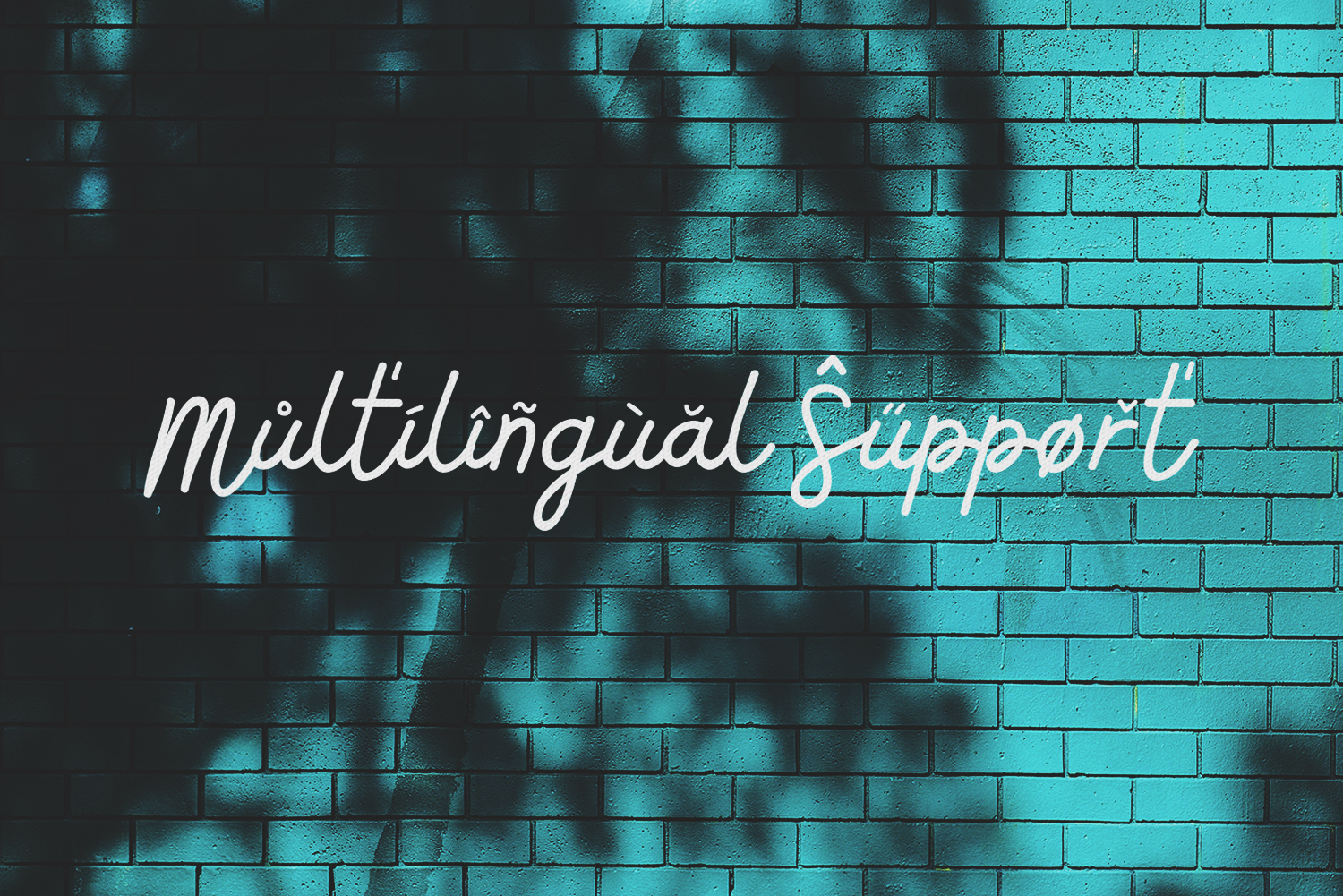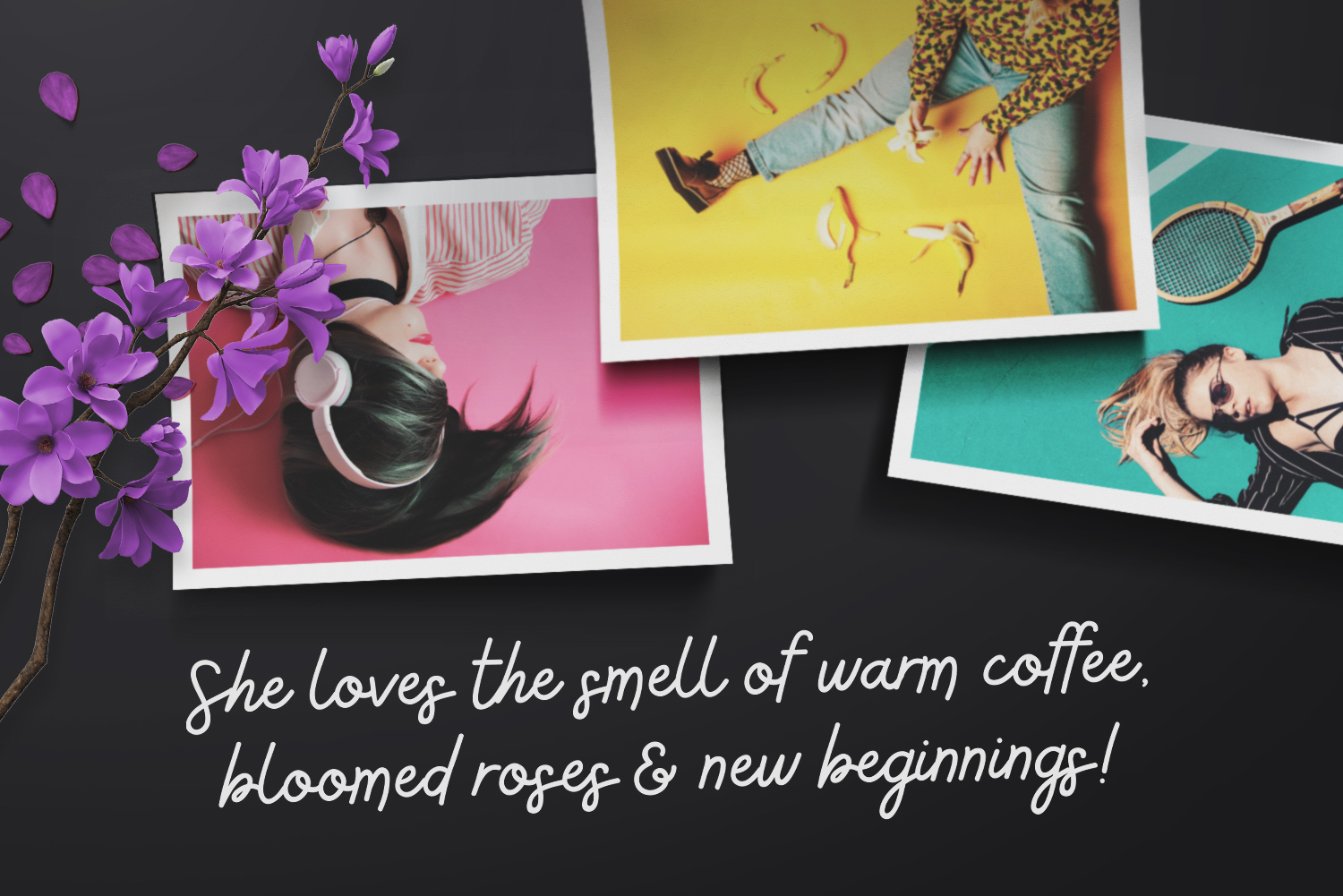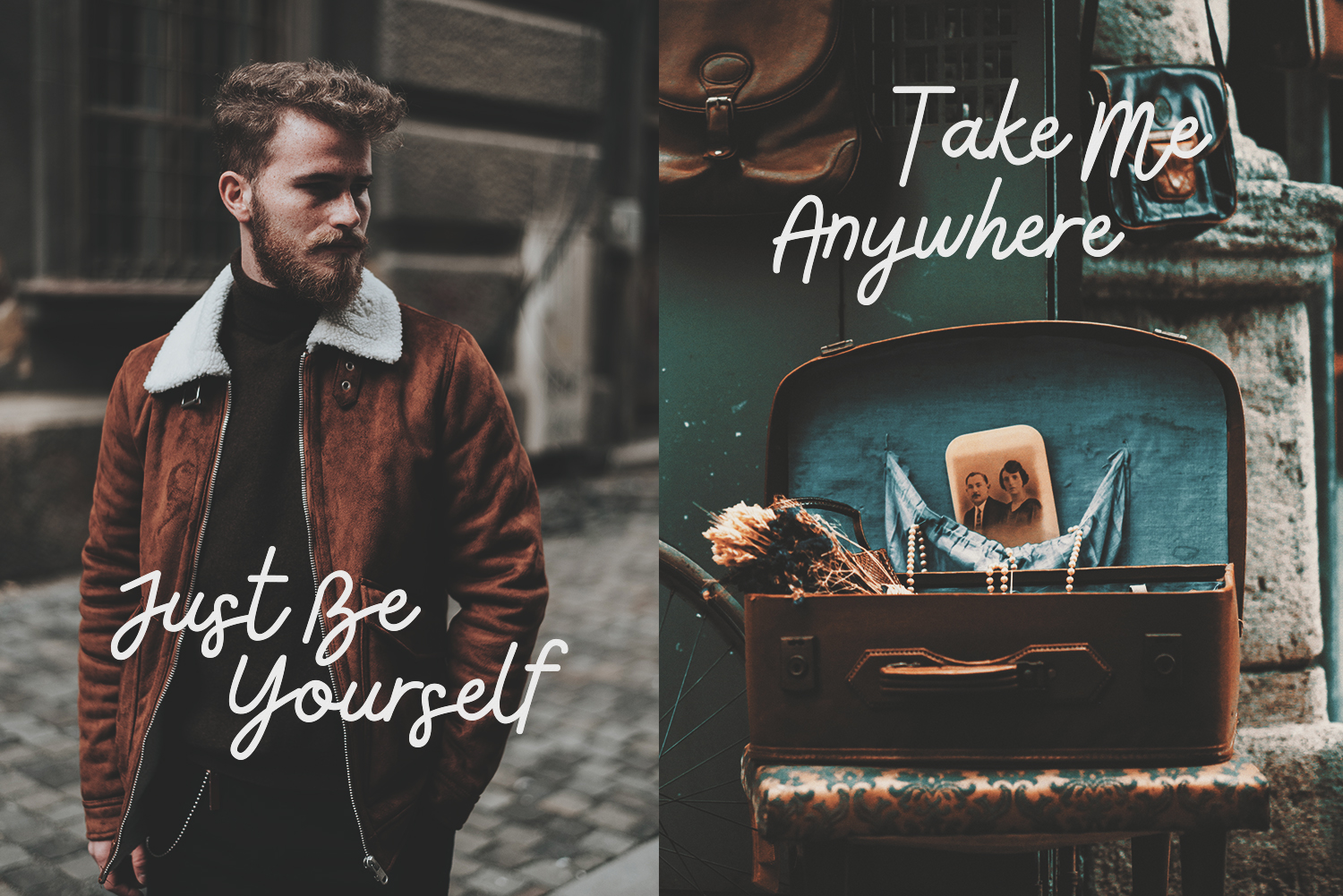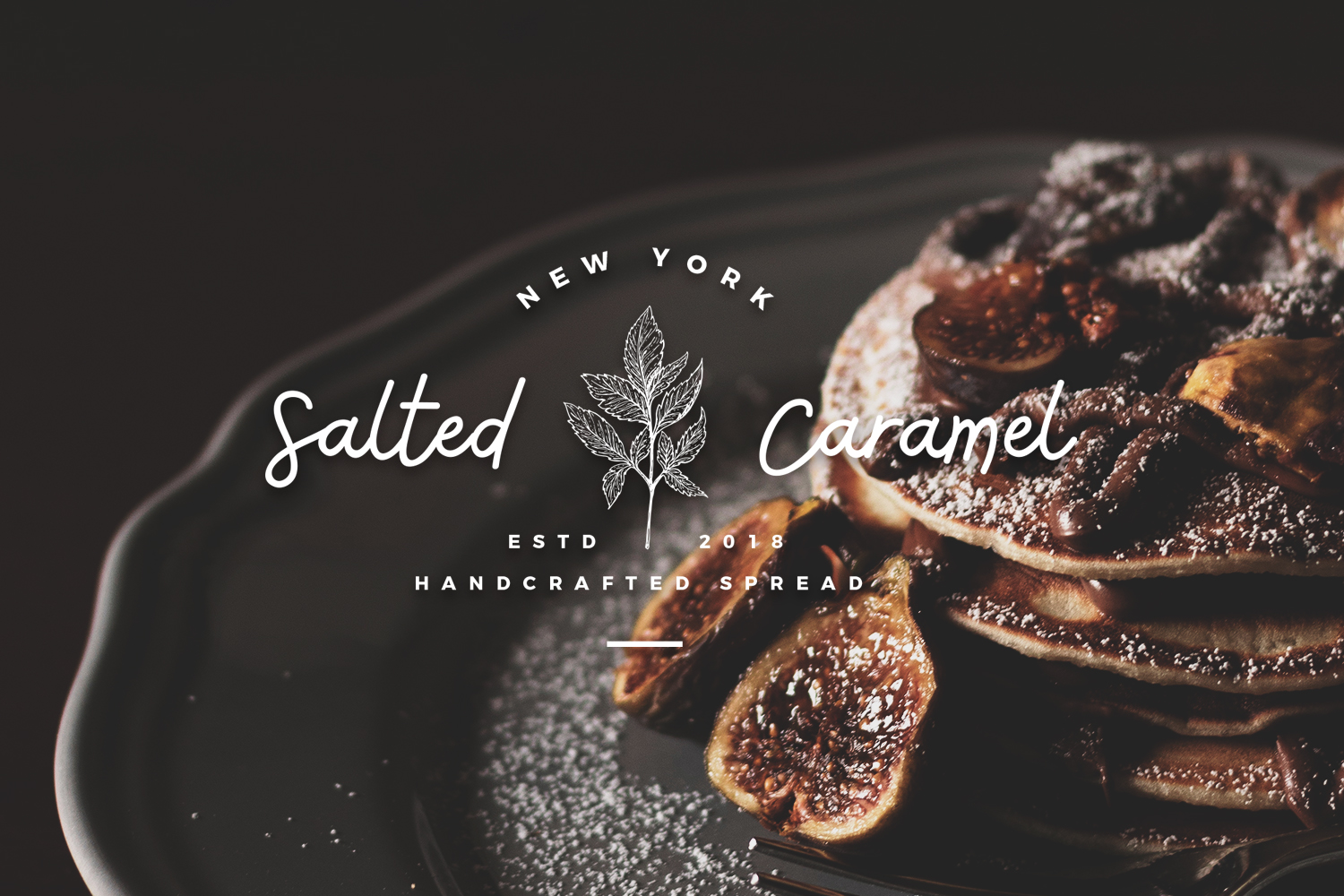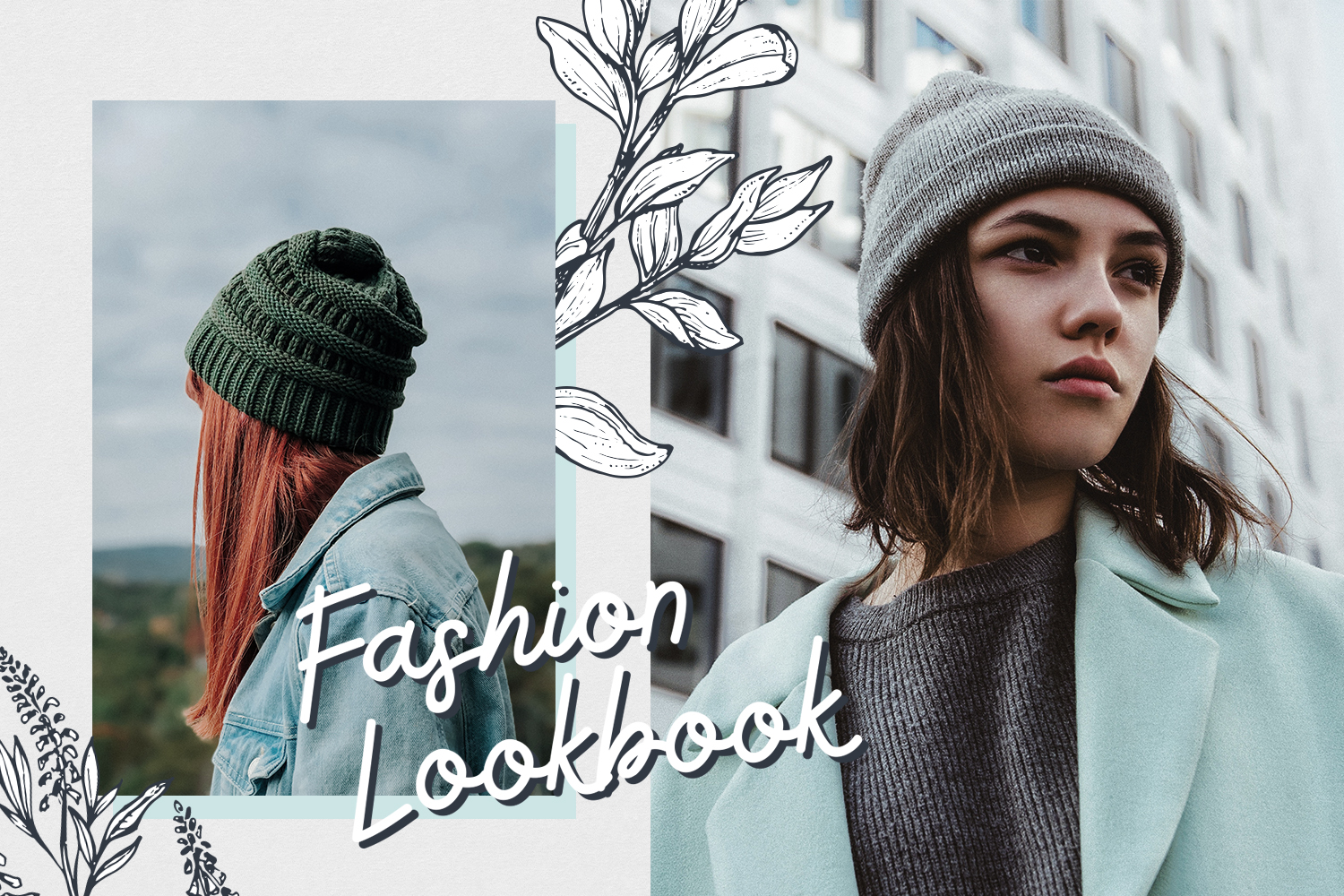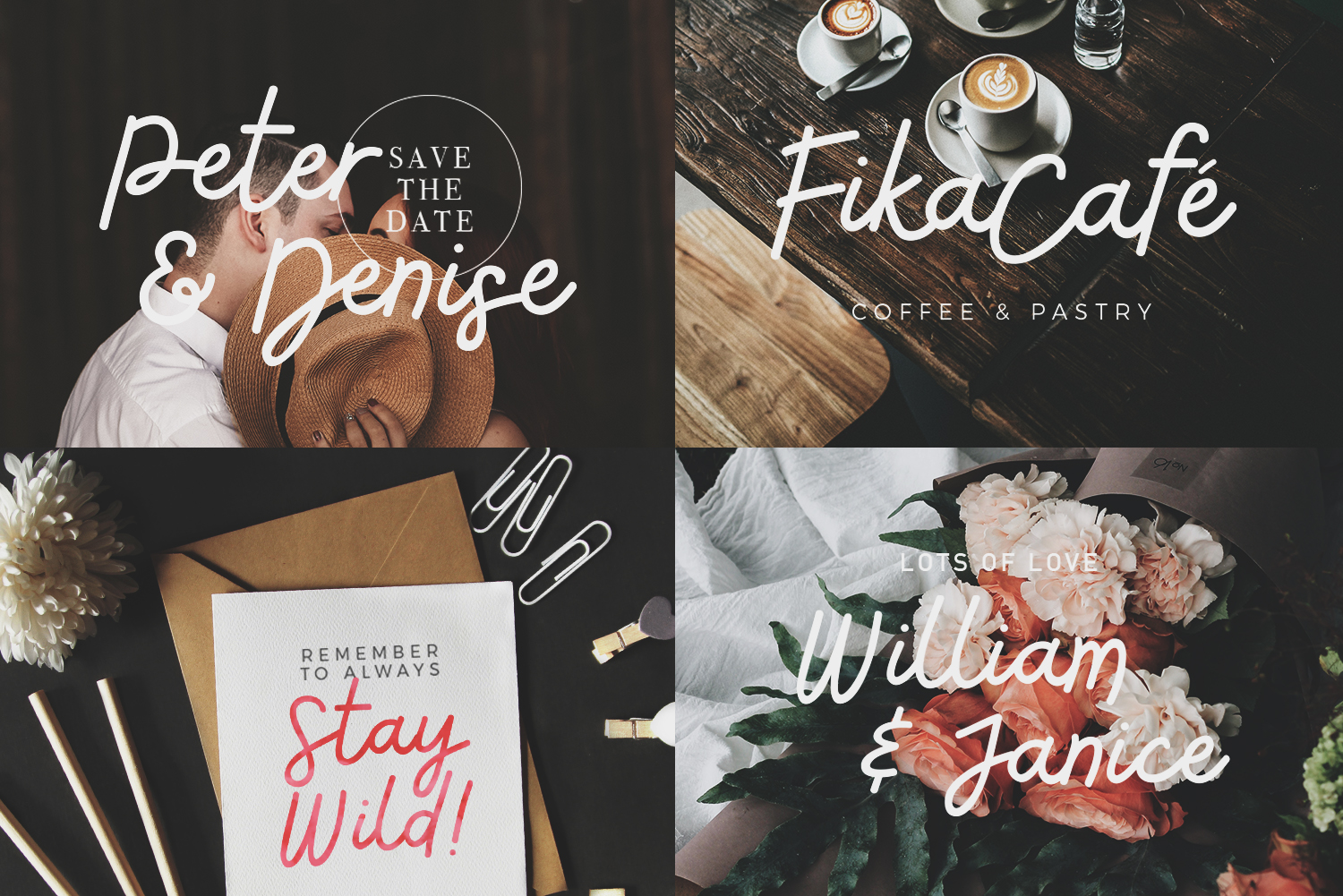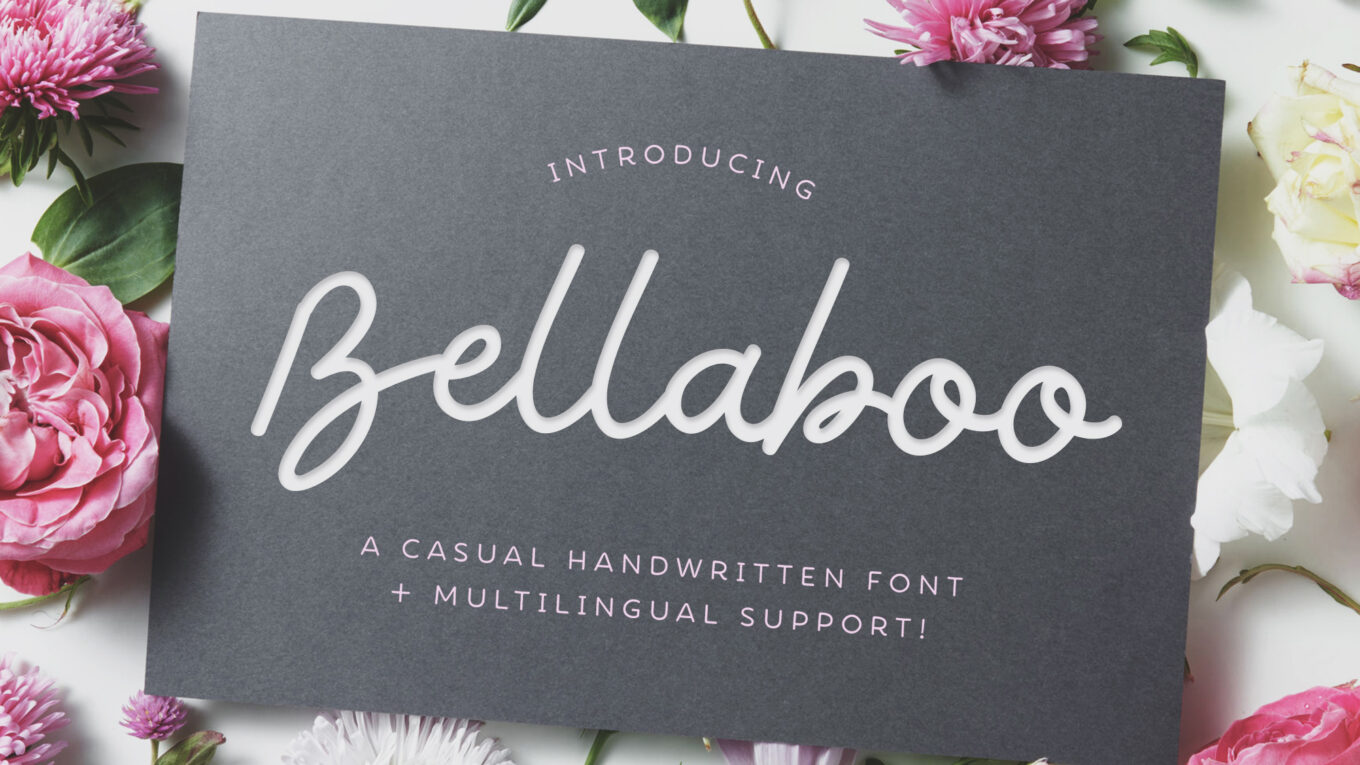
Bellaboo Font: The Perfect Handwritten Signature Script for Your Design Projects
Are you a designer or crafter looking for a unique and elegant font to elevate your design projects? Look no further than the Bellaboo Font! This beautiful handwritten signature script font is perfect for a wide range of projects, from logos and blog headers to wedding invitations, branding, t-shirts, posters, and more.
What is Bellaboo Font?
Bellaboo is a carefully crafted handwritten signature script font that exudes elegance and sophistication. Its flowing lines and delicate curves make it perfect for designs that require a personal touch. Whether you’re creating a logo, blog header, or wedding invitation, Bellaboo Font is sure to add a touch of class and refinement to your project.
Key Features of Bellaboo Font
- Handwritten signature script: Bellaboo Font is a beautifully crafted handwritten signature script font that mimics the look and feel of handwritten text.
- Elegant and sophisticated: With its flowing lines and delicate curves, Bellaboo Font is perfect for designs that require a touch of elegance and sophistication.
- Versatile: Bellaboo Font is perfect for a wide range of projects, from logos and blog headers to wedding invitations, branding, t-shirts, posters, and more.
Uses for Bellaboo Font
Bellaboo Font is perfect for a wide range of design projects, including:
- Logos: Create a unique and memorable logo for your business or brand with Bellaboo Font.
- Blog headers: Add a touch of elegance and sophistication to your blog with Bellaboo Font.
- Wedding invitations: Create beautiful and elegant wedding invitations with Bellaboo Font.
- Branding: Use Bellaboo Font to create a consistent brand identity across all your marketing materials.
- T-shirts: Create custom t-shirts with Bellaboo Font for a unique and stylish look.
- Posters: Use Bellaboo Font to create eye-catching posters for your business or brand.
Why Choose Bellaboo Font?
There are many reasons why you should choose Bellaboo Font for your design projects. Here are just a few:
- Unique and elegant: Bellaboo Font is a unique and elegant font that will add a touch of sophistication to your design projects.
- Versatile: Bellaboo Font is perfect for a wide range of projects, from logos and blog headers to wedding invitations, branding, t-shirts, posters, and more.
- High-quality: Bellaboo Font is a high-quality font that is designed to produce crisp and clear text at any size.
Tips for Using Bellaboo Font
Here are a few tips for using Bellaboo Font in your design projects:
- Use it sparingly: Bellaboo Font is a elegant and sophisticated font, so use it sparingly to add a touch of class to your design projects.
- Pair it with other fonts: Bellaboo Font pairs well with other fonts, so don’t be afraid to experiment with different font combinations.
- Experiment with different sizes: Bellaboo Font is a versatile font that can be used at a variety of sizes, so experiment with different sizes to find the one that works best for your project.
| Font Name | Bellaboo Font |
| Author | typefairy |
In conclusion, Bellaboo Font is a beautiful handwritten signature script font that is perfect for a wide range of design projects. Its elegant and sophisticated design makes it perfect for logos, blog headers, wedding invitations, branding, t-shirts, posters, and more. With its ease of use and high-quality design, Bellaboo Font is a great choice for designers and crafters of all skill levels.